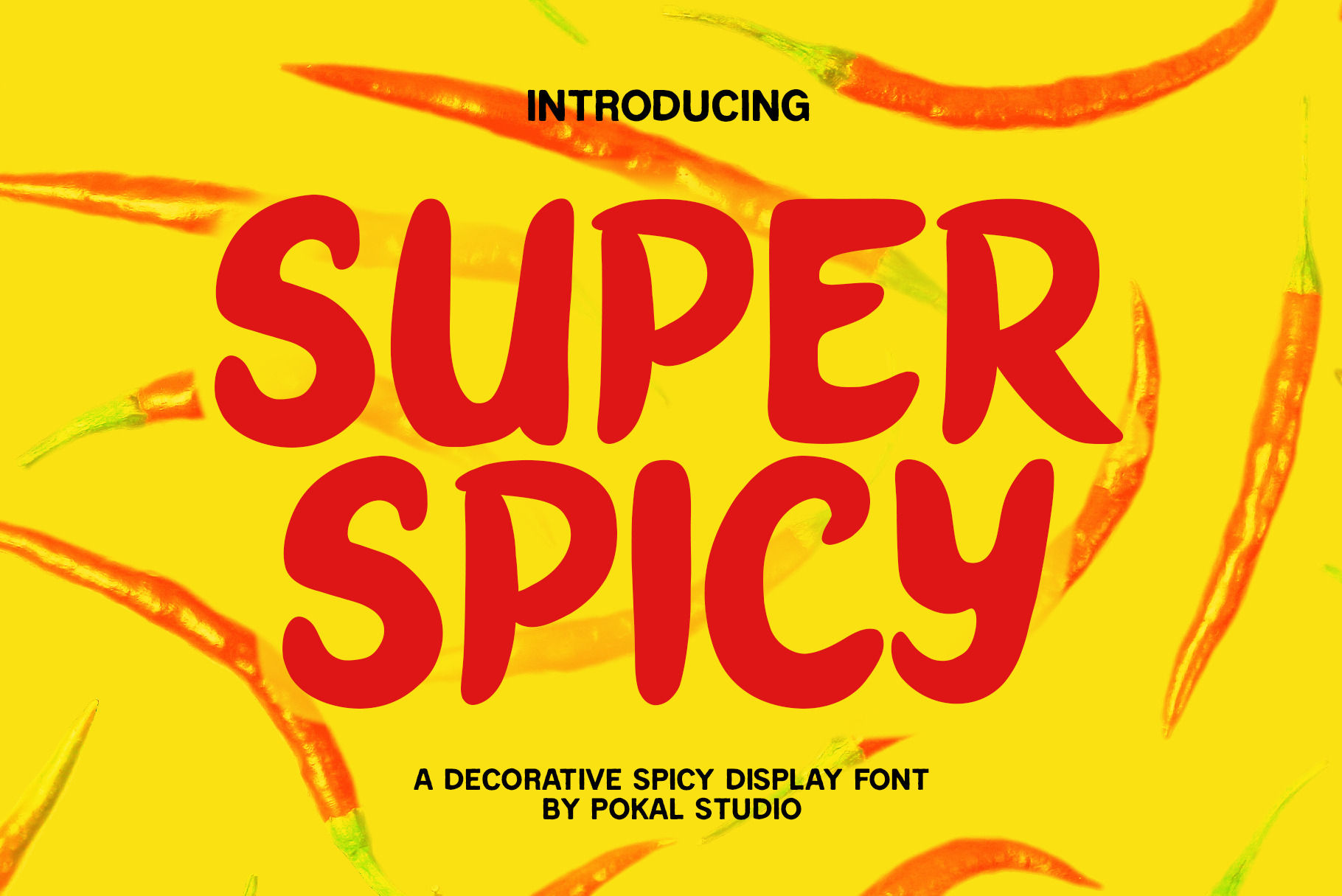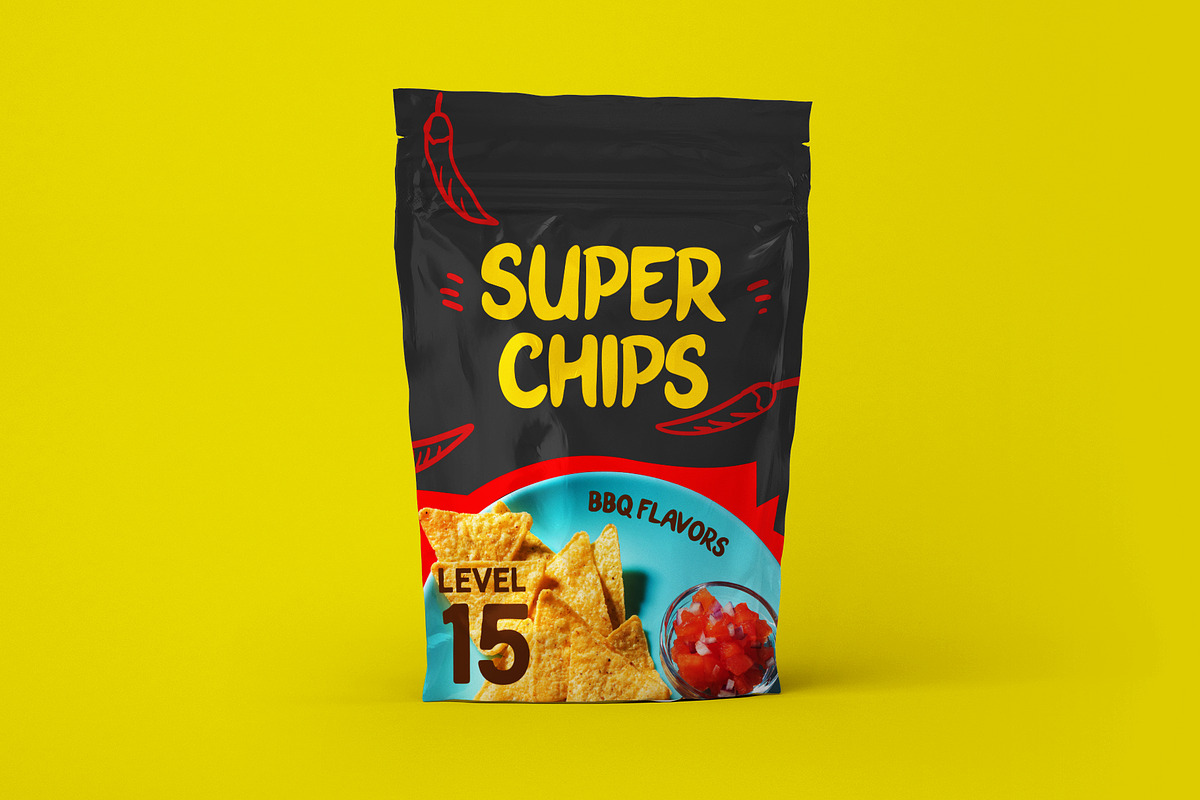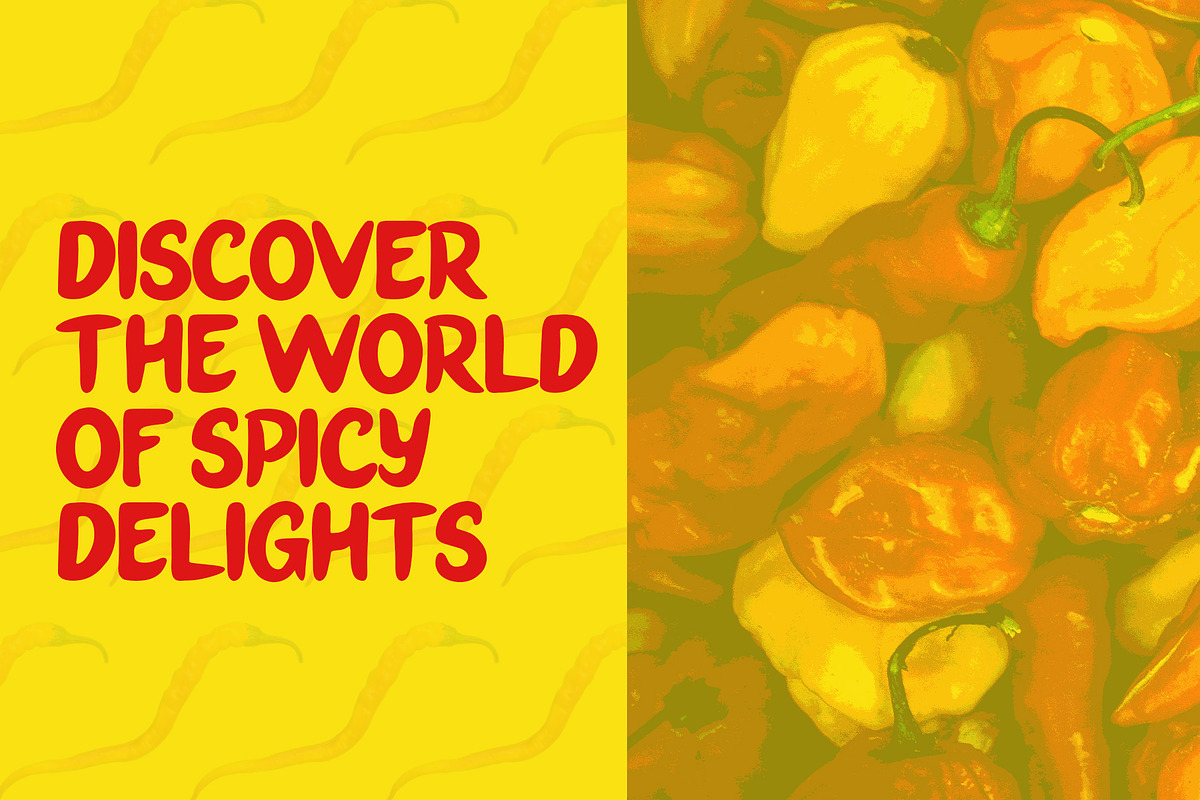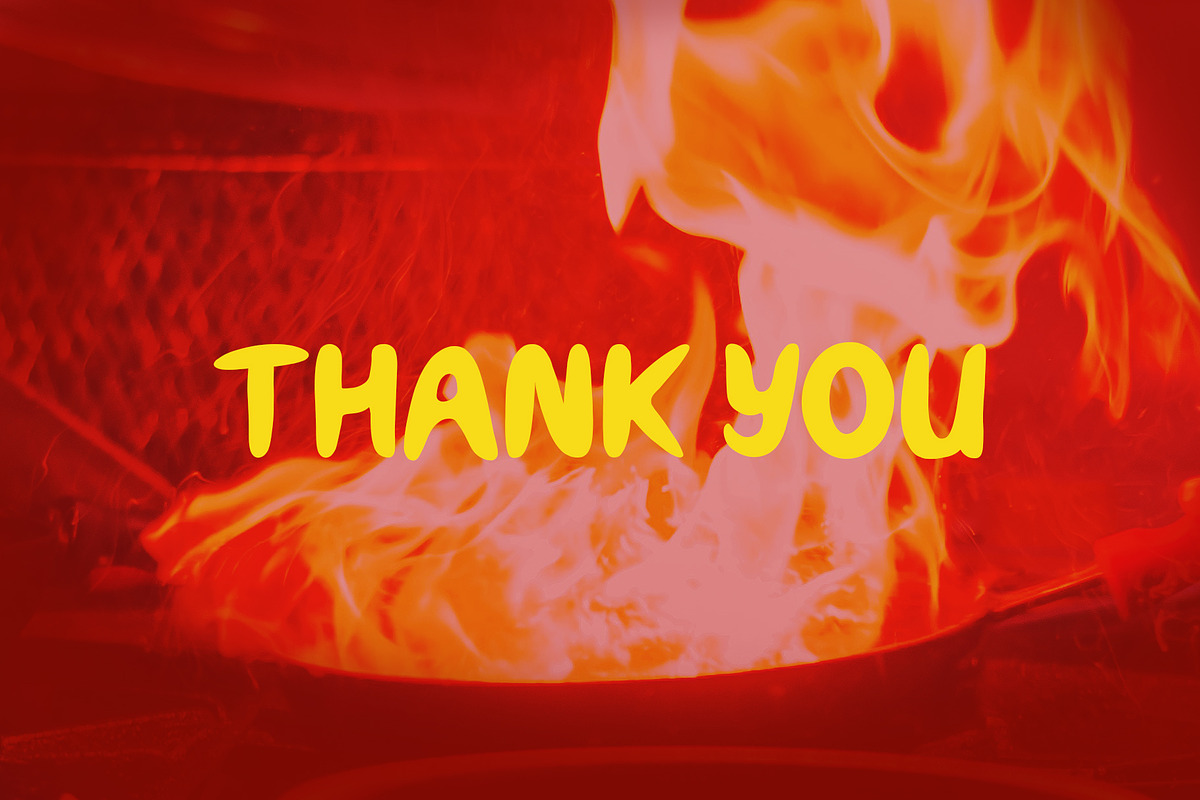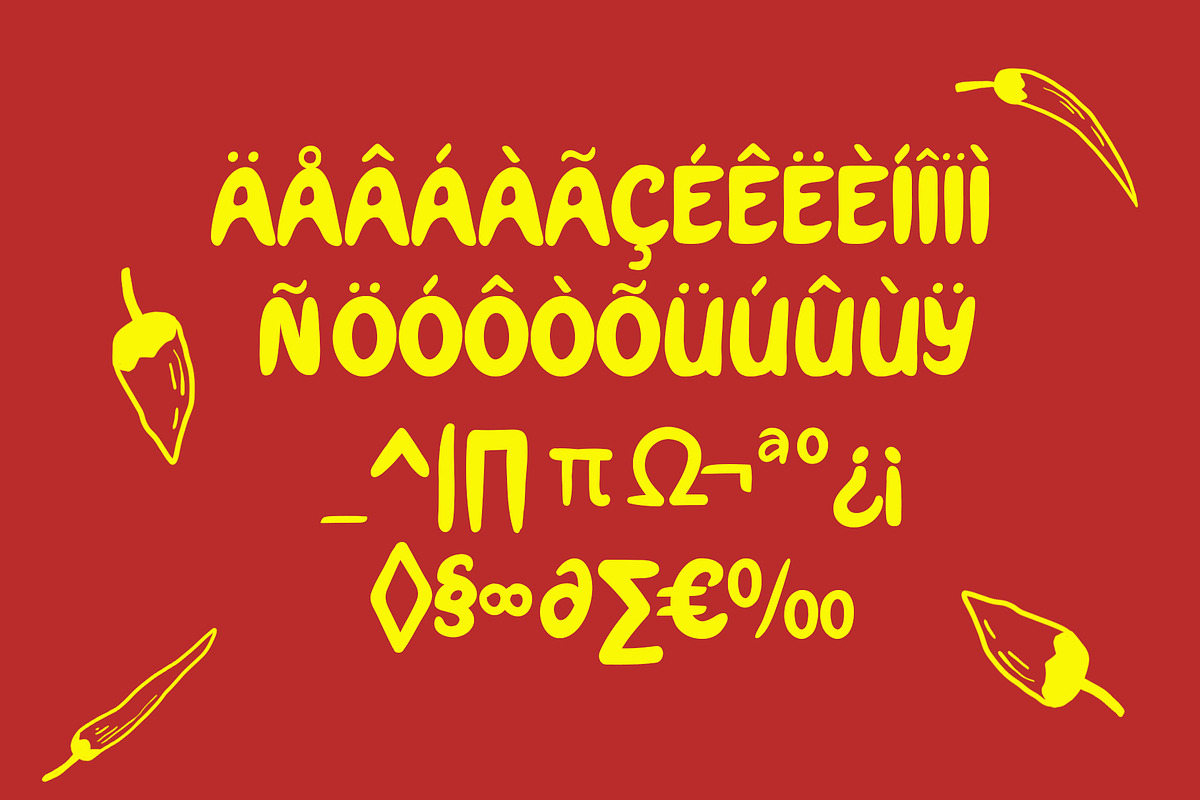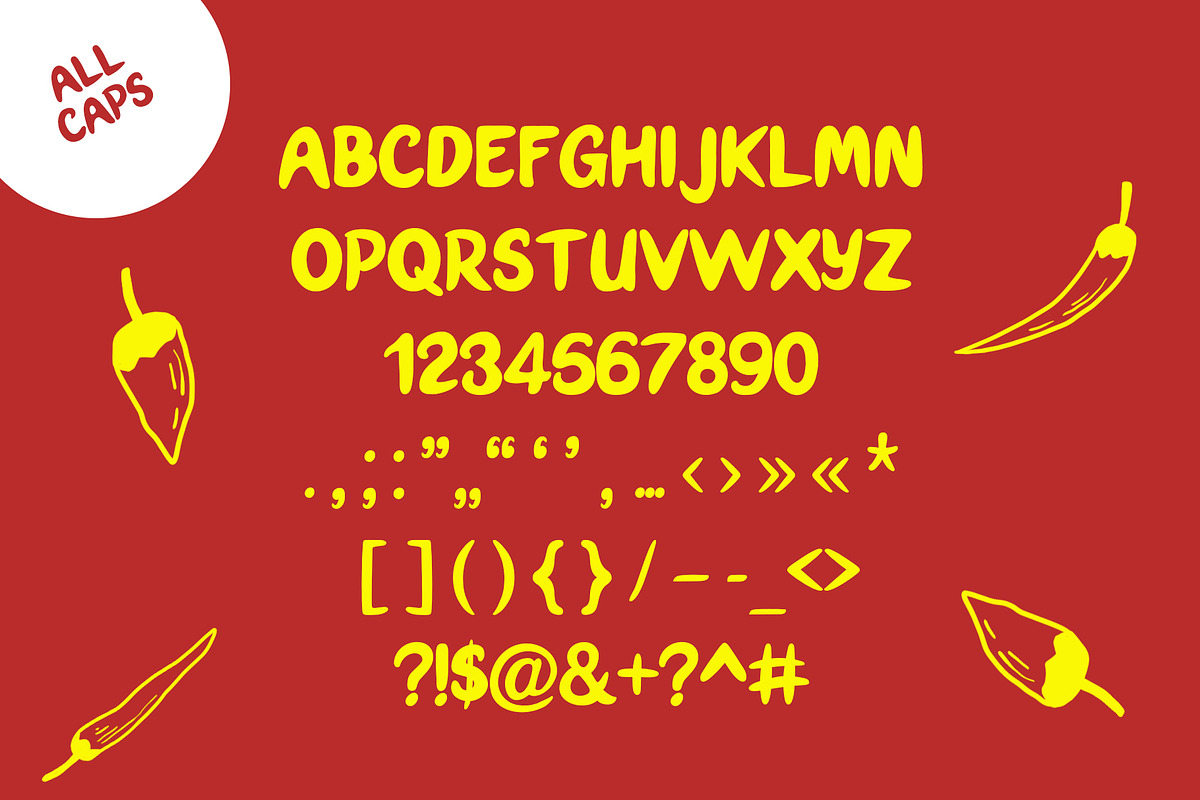
Superspicy Decorative Display Font
Introducing “Superspicy” – a captivating decorative bold stroke display font that adds a fiery touch to your designs. With its dynamic and expressive style, Superspicy captures the essence of spiciness and is ideally suited for various applications such as food packaging, labels, and logos. Superspicy display font support multilingual with open-type Latin pro glyphs.
Superspicy Display Font inspired by the typical food packaging label design, and its logotype. Dare to try the sensation of spiciness font on your brand? Let's go try it out!